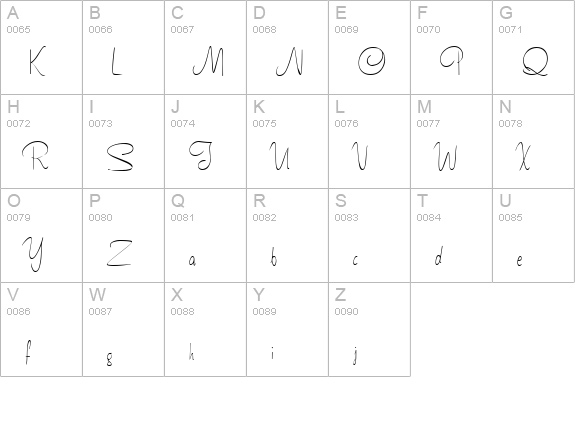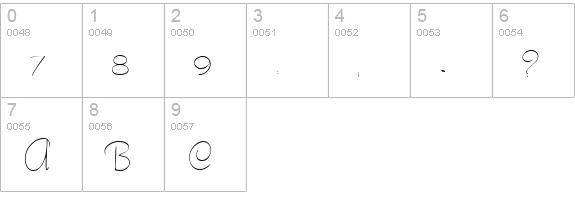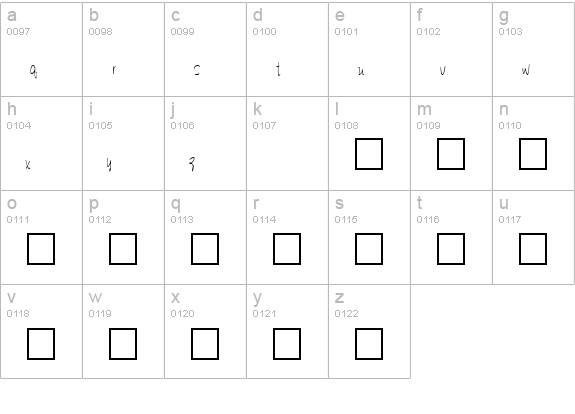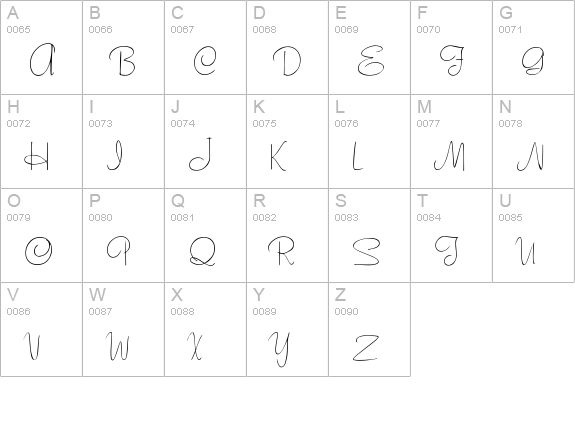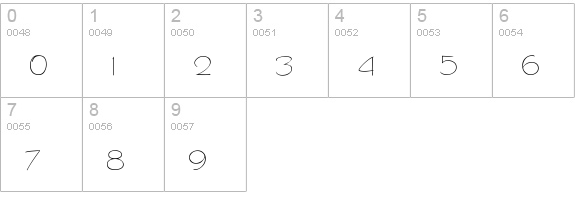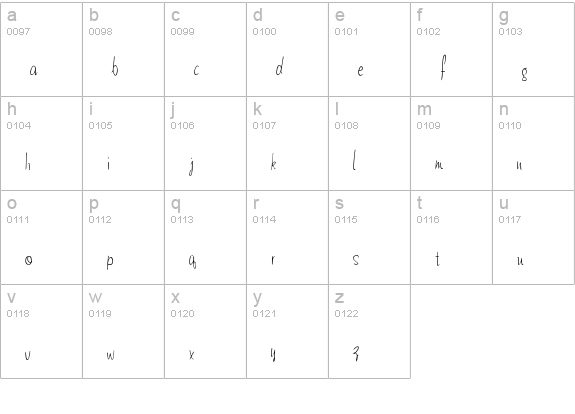
Tamarind Font Details
Tamarind font, with its elegant and captivating design, is the perfect choice for those seeking a unique and eye-catching typeface. This font combines a modern aesthetic with a touch of vintage charm, creating a truly versatile and timeless style. Its sleek and fluid letterforms effortlessly blend together, creating a harmonious and balanced appearance on any project. What sets Tamarind font apart is not just its stunning visual appeal, but also its accessibility. This font is freely available to download at FontsMarket.com, making it easily accessible to designers, creatives, and typographers alike. Say goodbye to the hassle of expensive licensing fees or limited usage rights, as Tamarind font offers the freedom to use it in personal and commercial projects without any restrictions. Whether you're designing captivating logos, sophisticated branding materials, eye-catching posters, or engaging website headers, Tamarind font is here to elevate your creative endeavors. Its wide range of weights and styles provide endless possibilities for experimentation and customization, ensuring that your designs stand out from the crowd. With its legible and well-crafted letterforms, Tamarind font guarantees clear and readable text in any size or format. From small captions to large headlines, this font remains visually stunning and impactful, making it a versatile tool for any design project. Embrace the freedom to express your creativity with Tamarind font, an exceptional typeface that effortlessly combines elegance, versatility, and accessibility. Download it for free at FontsMarket.com and unlock a world of design possibilities that are limited only by your imagination.